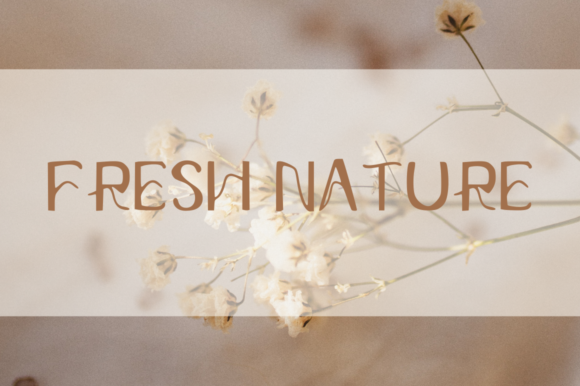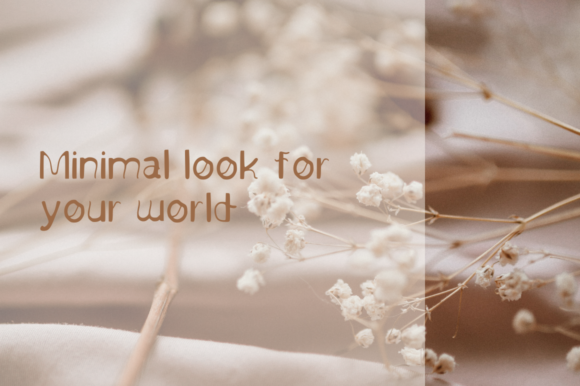
Couline Font: The Ultimate Minimalist Handwritten Font for Designers and Crafters
In the world of typography, fonts play a crucial role in conveying messages, expressing emotions, and creating visual identities. For designers and crafters, finding the perfect font can be a daunting task, especially when it comes to creating unique and engaging content. This is where Couline Font comes in – a minimalist handwritten font that has taken the design community by storm. In this article, we’ll dive into the world of Couline Font, exploring its features, benefits, and uses.
What is Couline Font?
Couline Font is a modern, minimalist handwritten font designed to work wonderfully in various applications, including branding, posters, social media content, product design, and more. As a vector-based font, Couline is scalable to any size without losing its charm or legibility, making it a versatile choice for designers and crafters.
Key Features of Couline Font
• Minimalist Design: Couline Font boasts a clean and simple design, perfect for creating modern and sophisticated visual content.
• Handwritten Style: The font’s handwritten style adds a touch of personality and warmth to any design, making it ideal for brands and crafters looking to connect with their audience.
• Vector-Based: As a vector-based font, Couline can be scaled up or down without losing its quality, ensuring crisp and clear text at any size.
• Multi-Purpose: Couline Font is suitable for a wide range of applications, from branding and posters to social media content and product design.
Benefits of Using Couline Font
So, why should designers and crafters choose Couline Font for their projects? Here are just a few benefits:
• Unique Visual Identity: Couline Font helps create a distinctive visual identity for brands and crafters, setting them apart from the competition.
• Easy to Read: The font’s clear and simple design ensures that text is easy to read, even at small sizes.
• Time-Saving: With Couline Font, designers and crafters can save time and effort, as the font can be easily integrated into various design projects.
• High-Quality: As a vector-based font, Couline ensures high-quality text that looks great in any application.
Uses of Couline Font
Couline Font is an incredibly versatile font that can be used in a variety of applications, including:
• Branding: Create a unique visual identity for your brand with Couline Font, perfect for logos, business cards, and more.
• Posters: Use Couline Font to create eye-catching posters that grab attention and communicate your message effectively.
• Social Media Content: Add a touch of personality to your social media content with Couline Font, perfect for graphics, captions, and more.
• Product Design: Incorporate Couline Font into your product design, such as packaging, labels, and instructions.
In conclusion, Couline Font is a fantastic addition to any designer’s or crafter’s toolkit. Its minimalist handwritten style, vector-based design, and multi-purpose uses make it an excellent choice for a wide range of applications. Whether you’re looking to create a unique visual identity, design eye-catching posters, or add a touch of personality to your social media content, Couline Font is the perfect solution. So why not give Couline Font a try and take your designs to the next level?